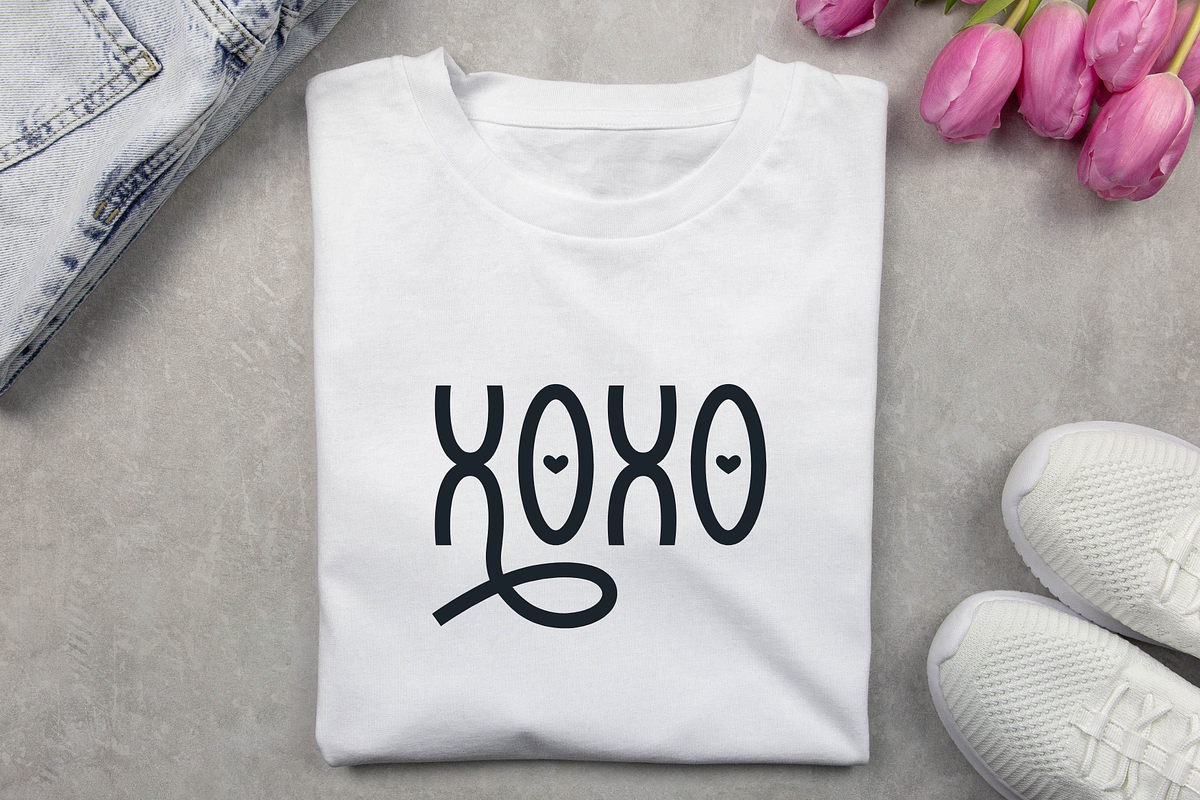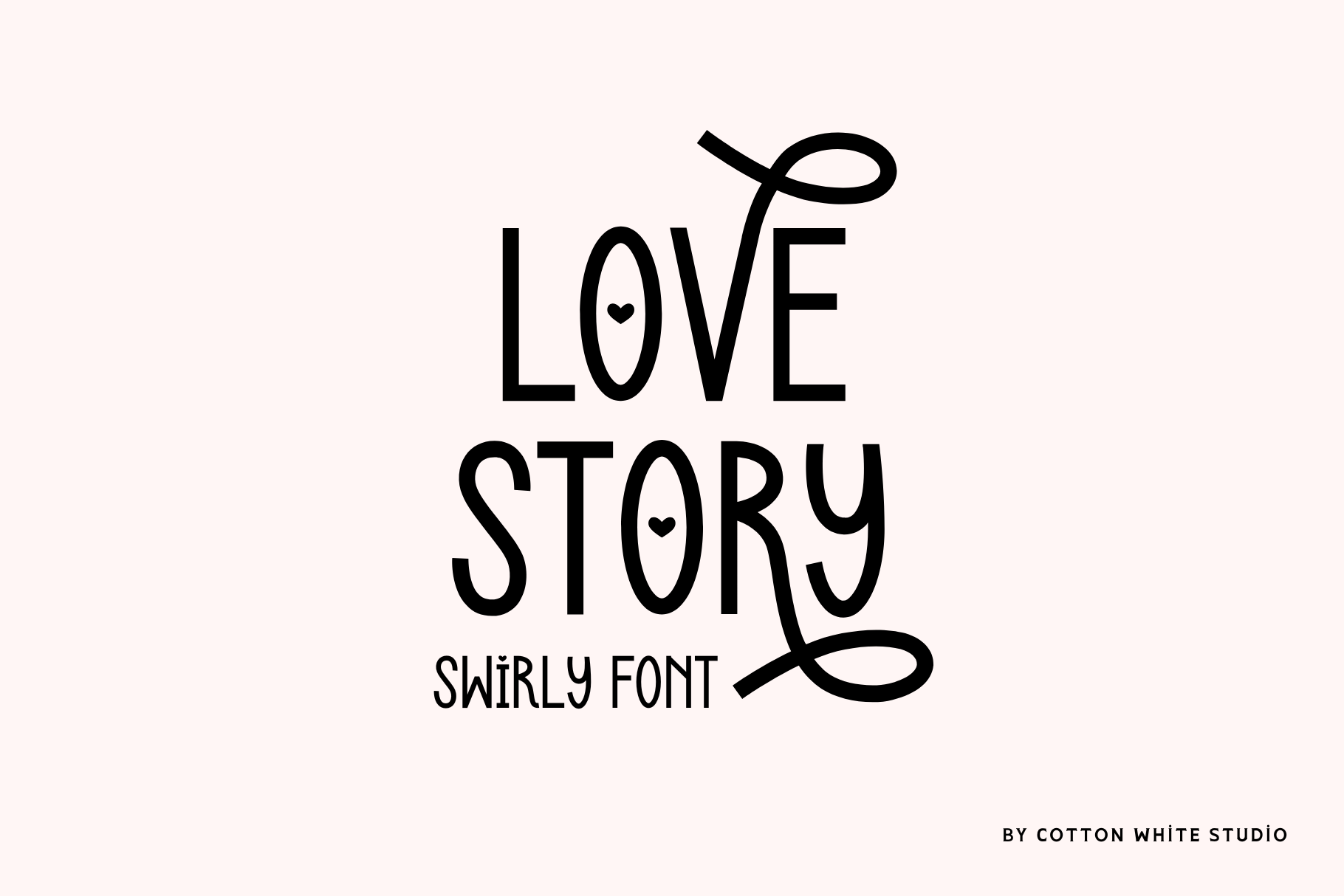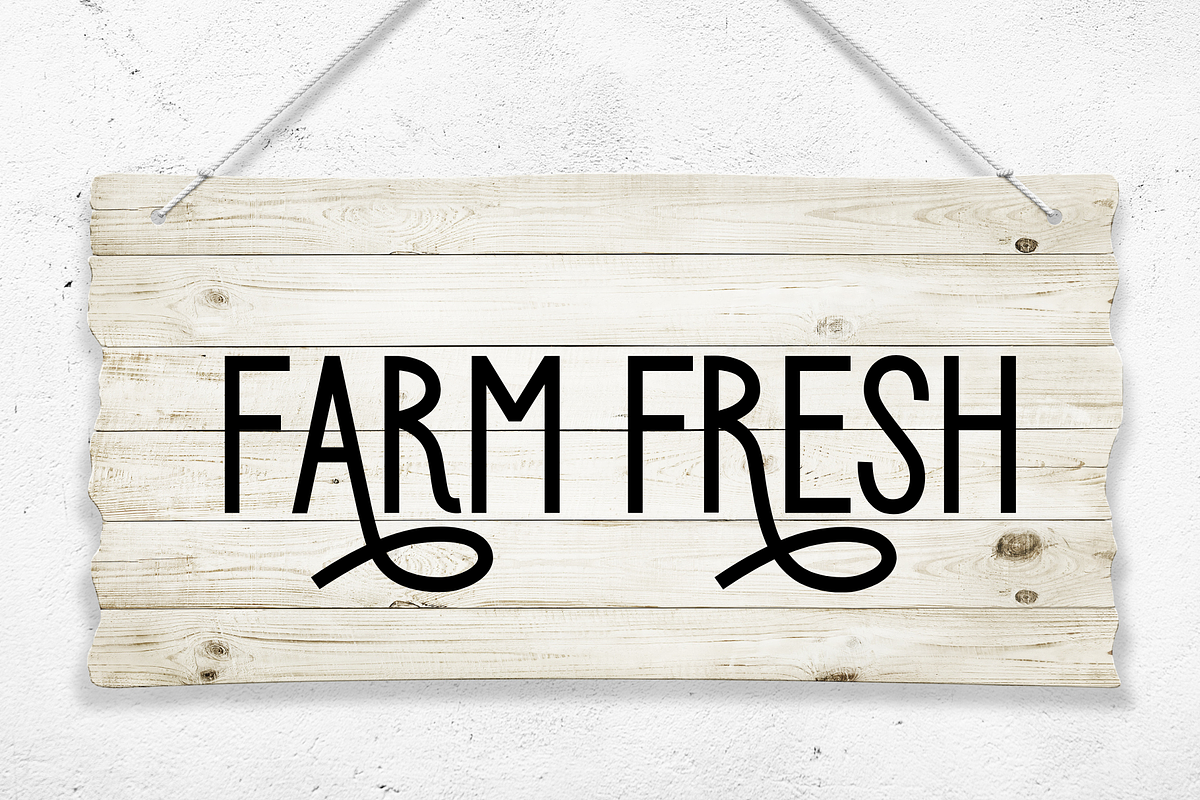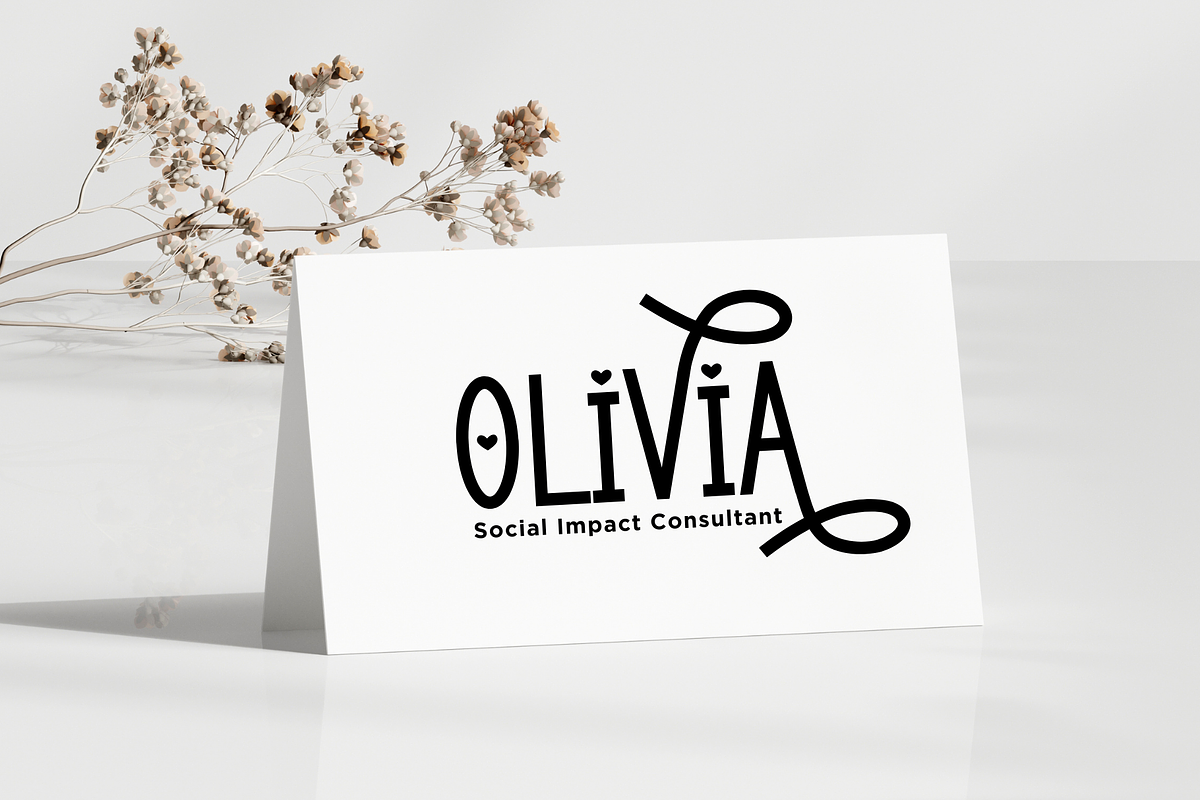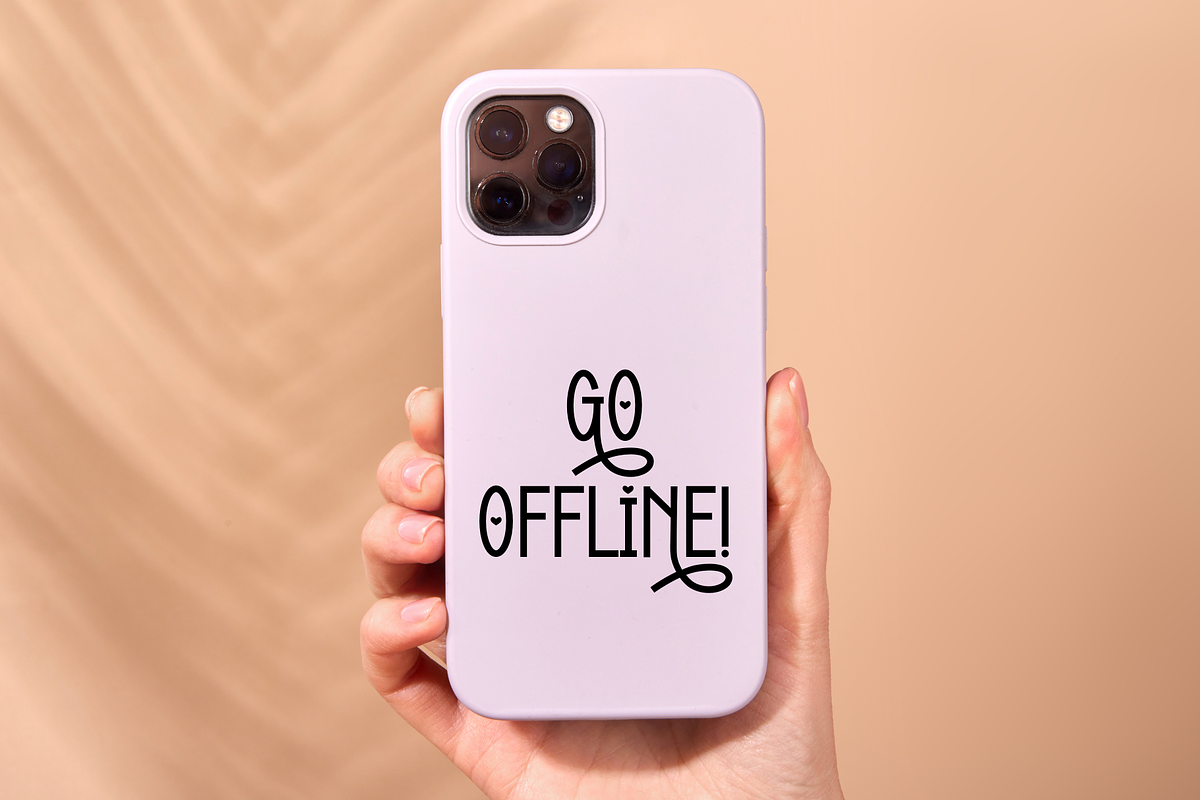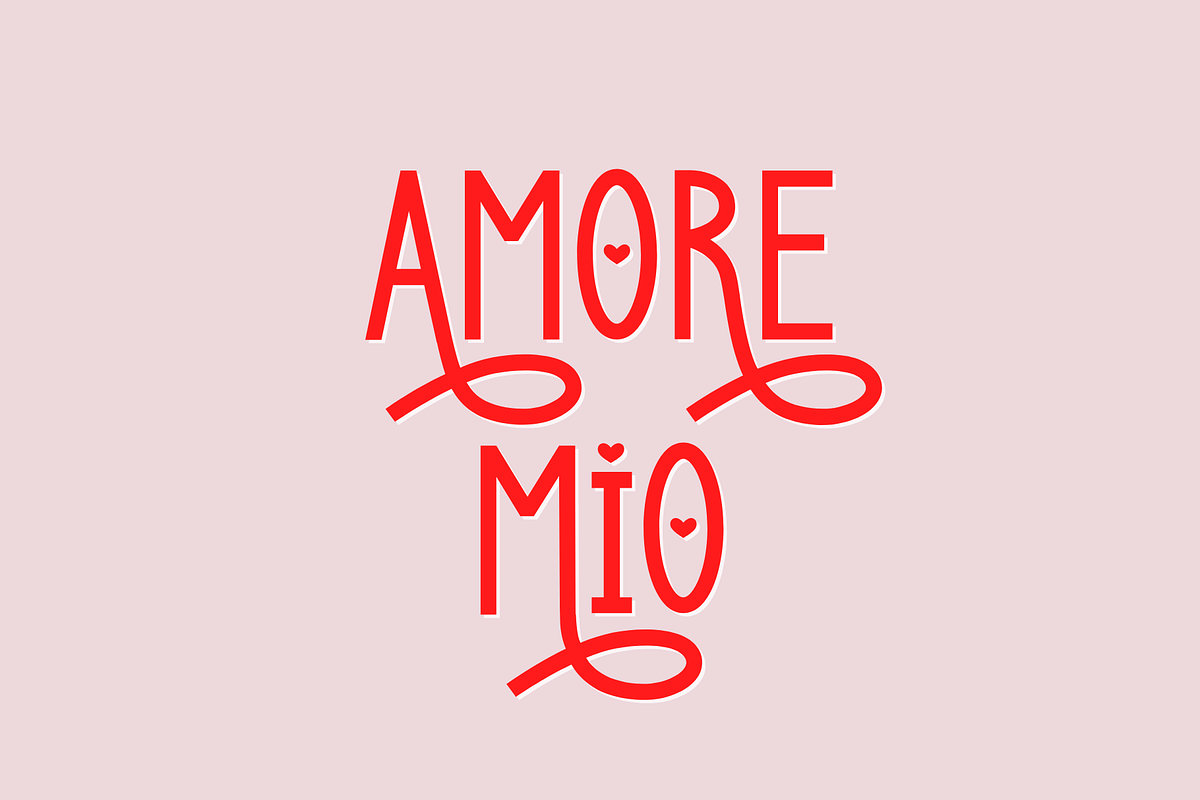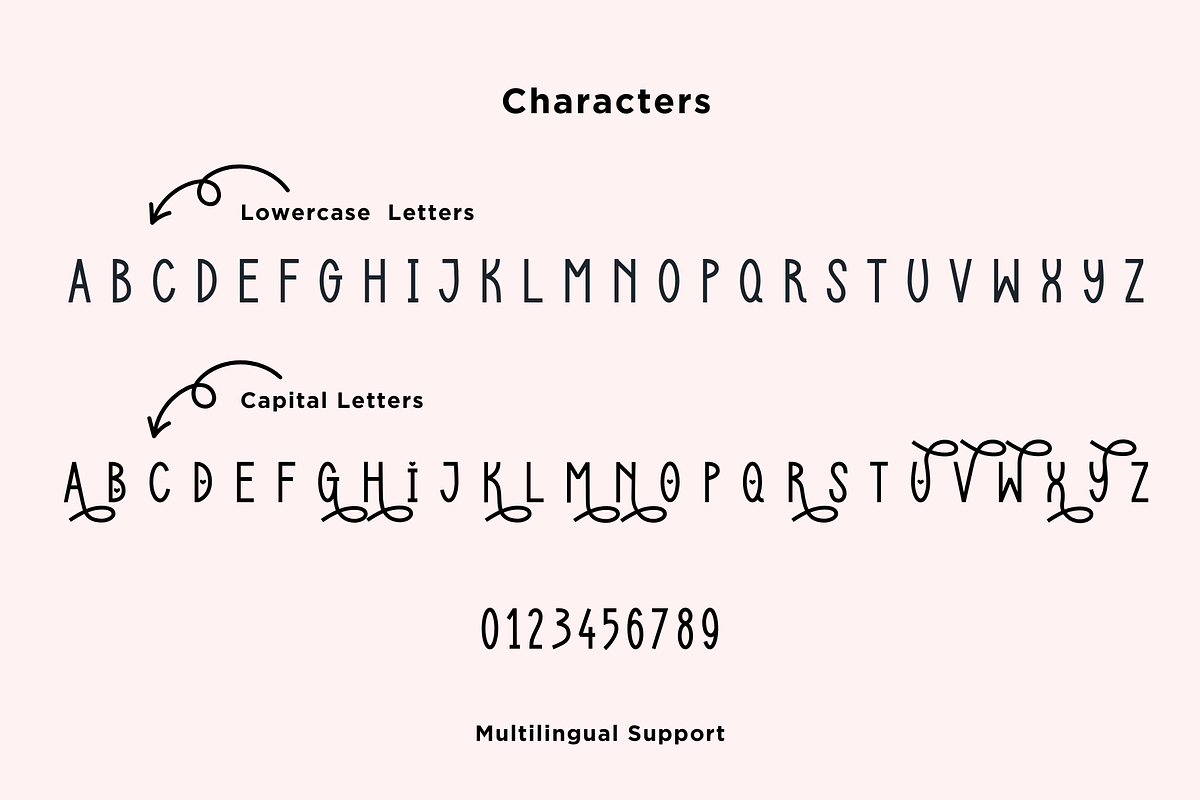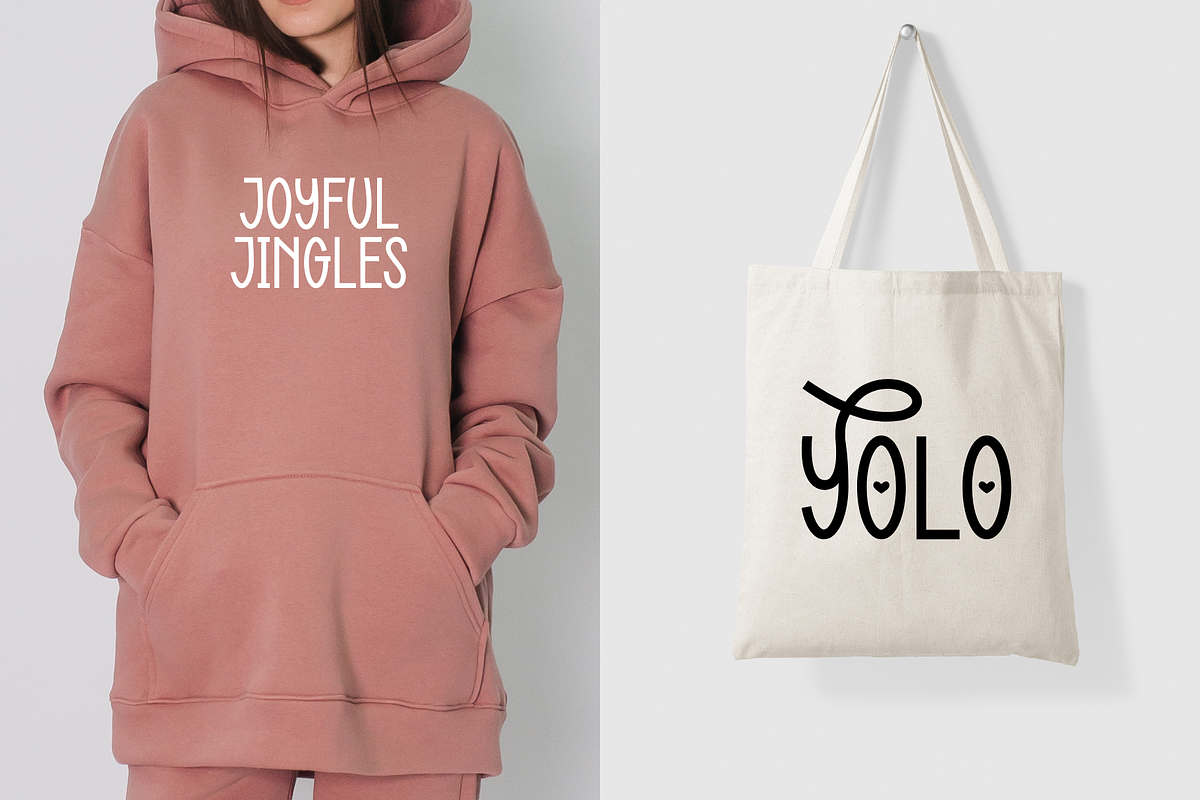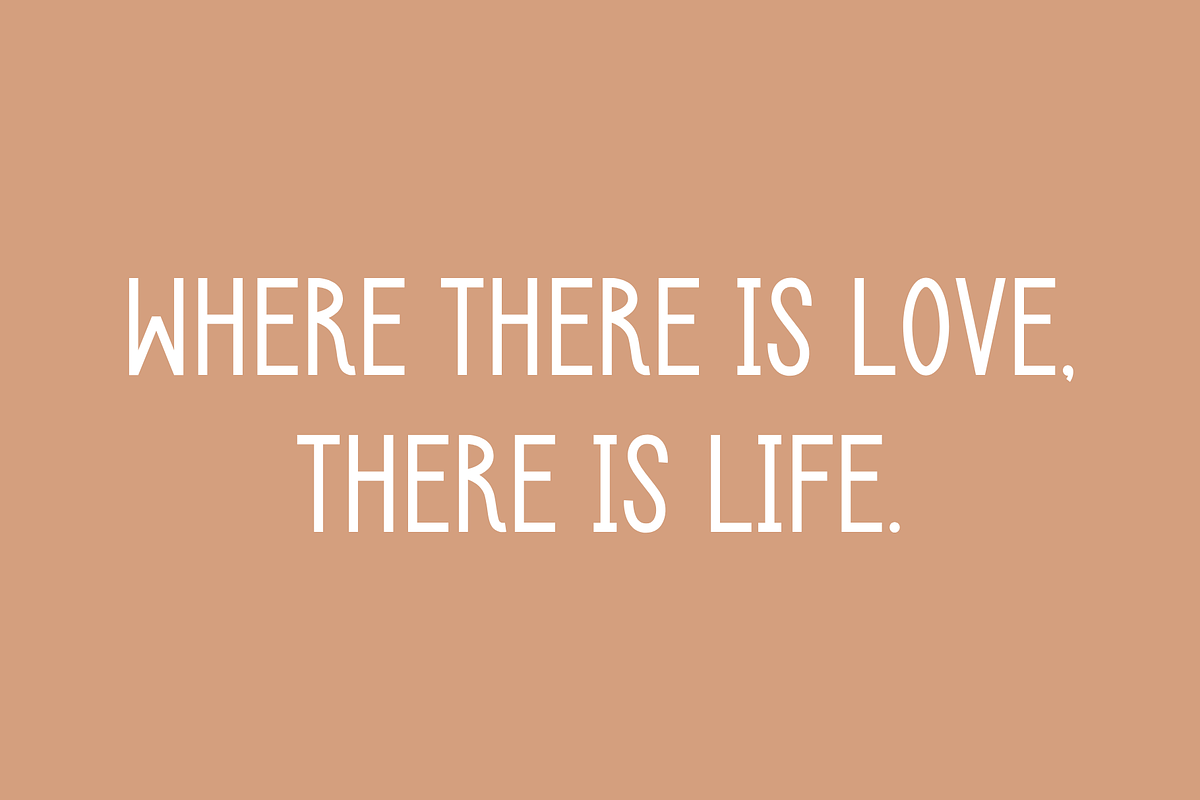
Love Story Cute Font
Cute all-caps font with swirly alternatives. Perfect for wedding invitations, romantic cards, social media posts, logo designs, personalised gifts, and more! ❤️